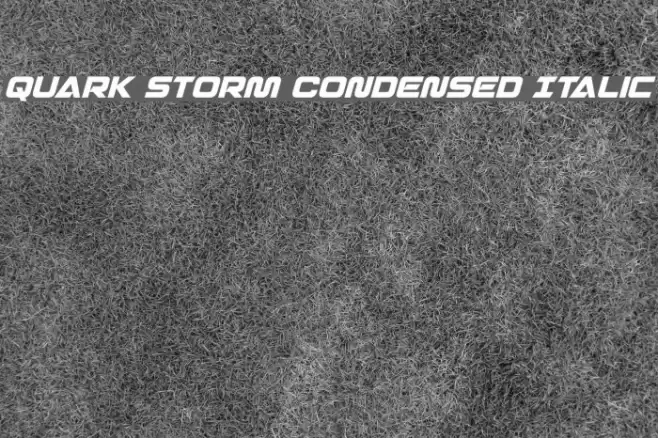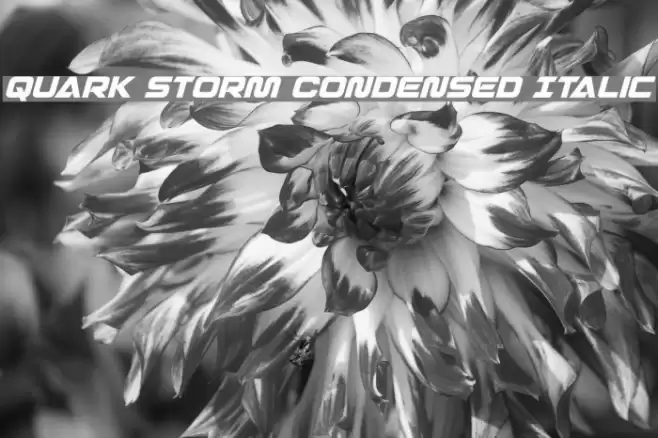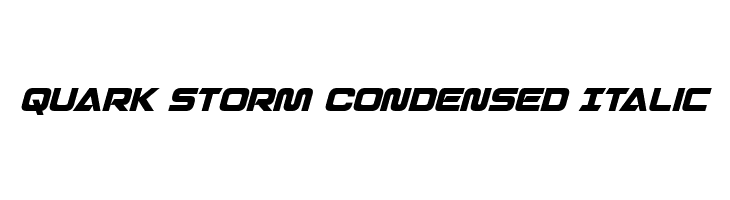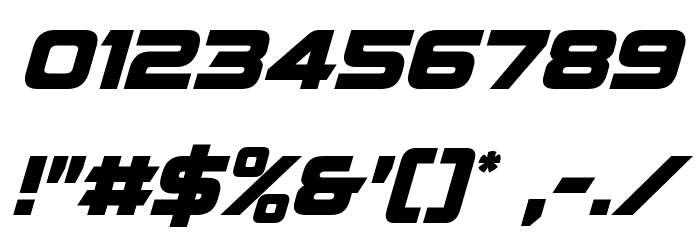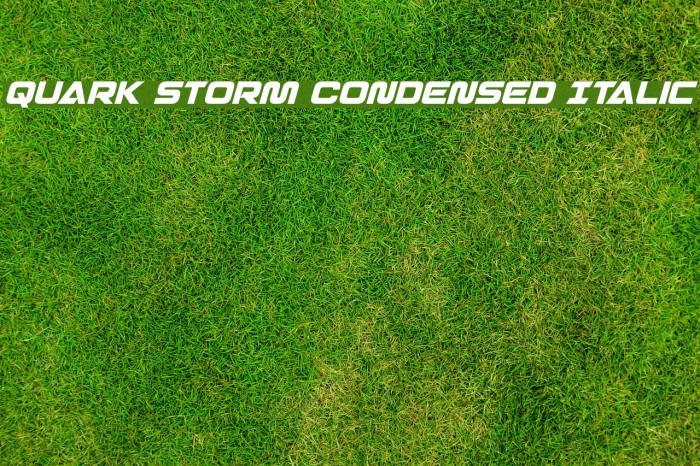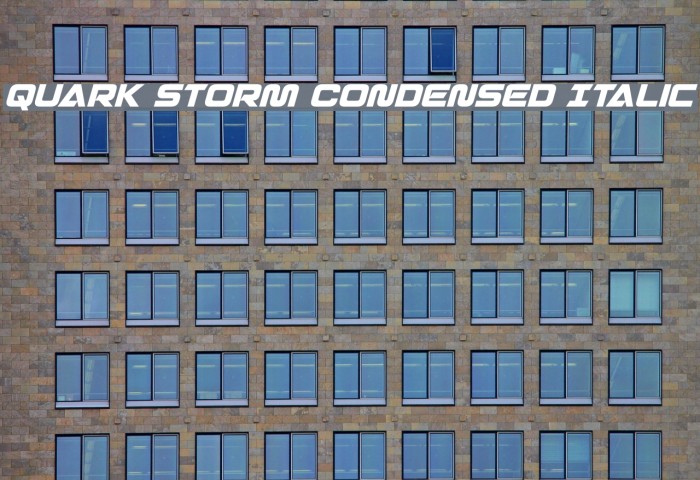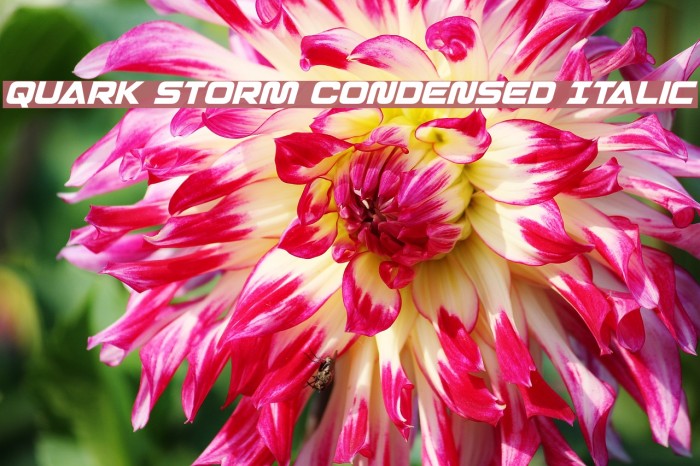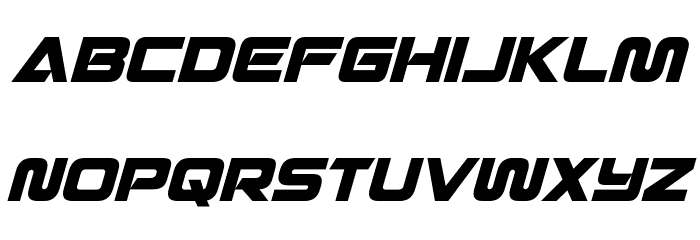
Quark Storm Condensed Italic Font
Quark Storm Condensed Italic Description
This font features a bold and dynamic style with a futuristic flair. The characters are sharply angled, giving a sense of motion and speed. The condensed form allows for efficient use of space, making it ideal for impactful headlines. The italic slant adds to the sense of forward movement, enhancing its modern and energetic appearance. The uniform stroke width provides a clean and consistent look, while the tight character spacing ensures compactness without sacrificing readability. This font is well-suited for projects that require a strong, contemporary aesthetic.
A bold, condensed, and italic font with a futuristic and dynamic style from Uncategorized fonts.
- Proposed Projects: Ideal for sports branding, tech company logos, futuristic posters, and dynamic headlines.
- Character Spacing: Tight